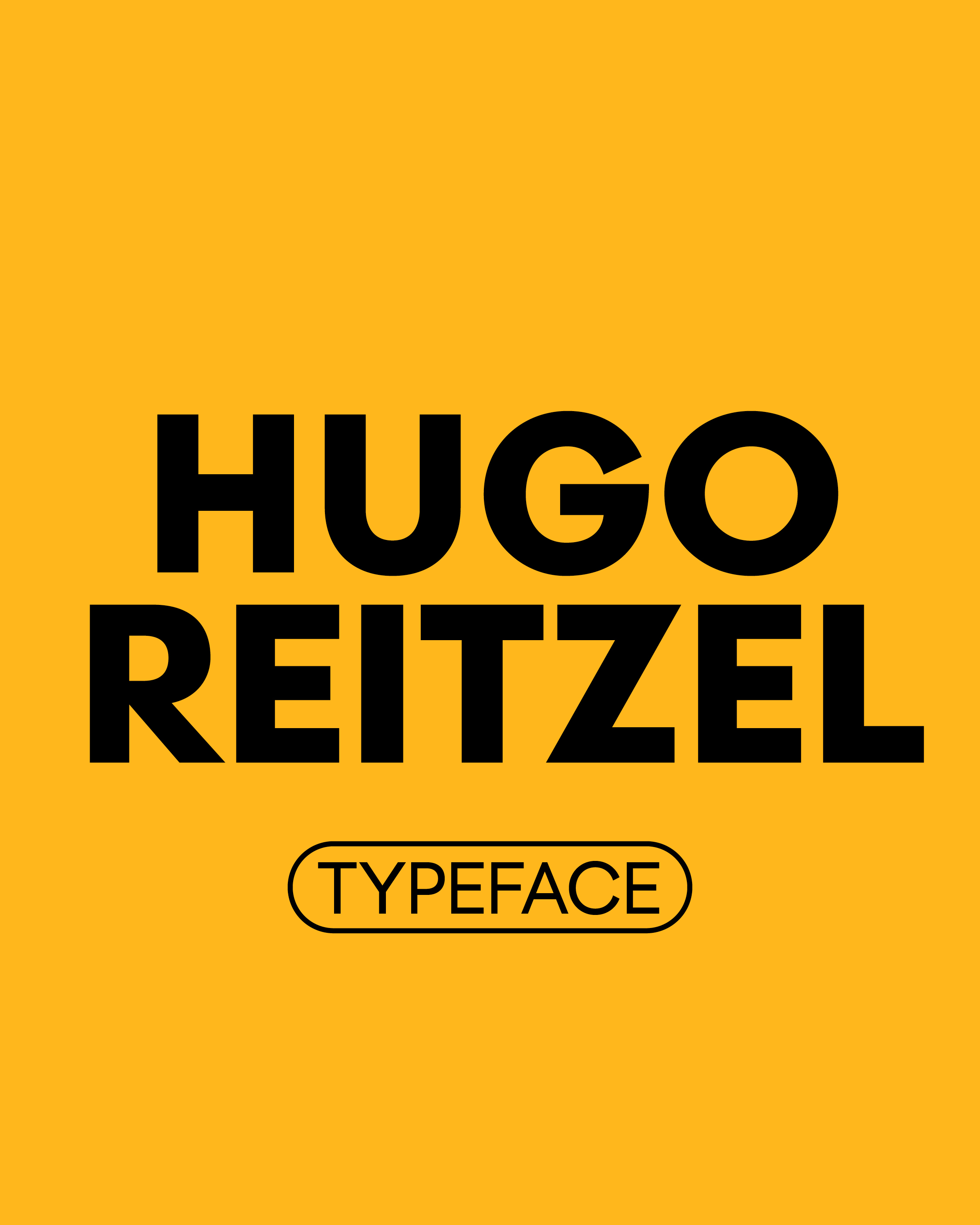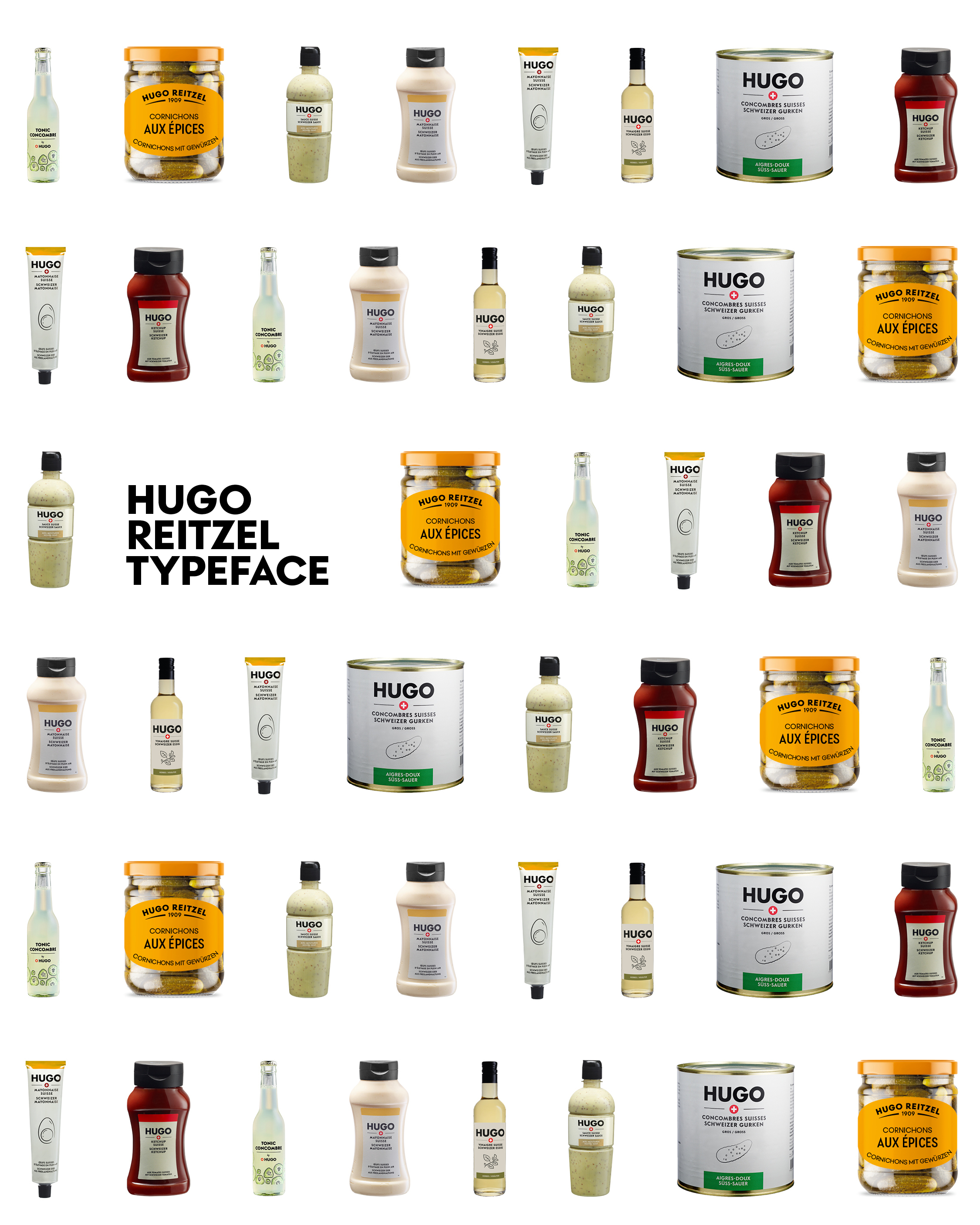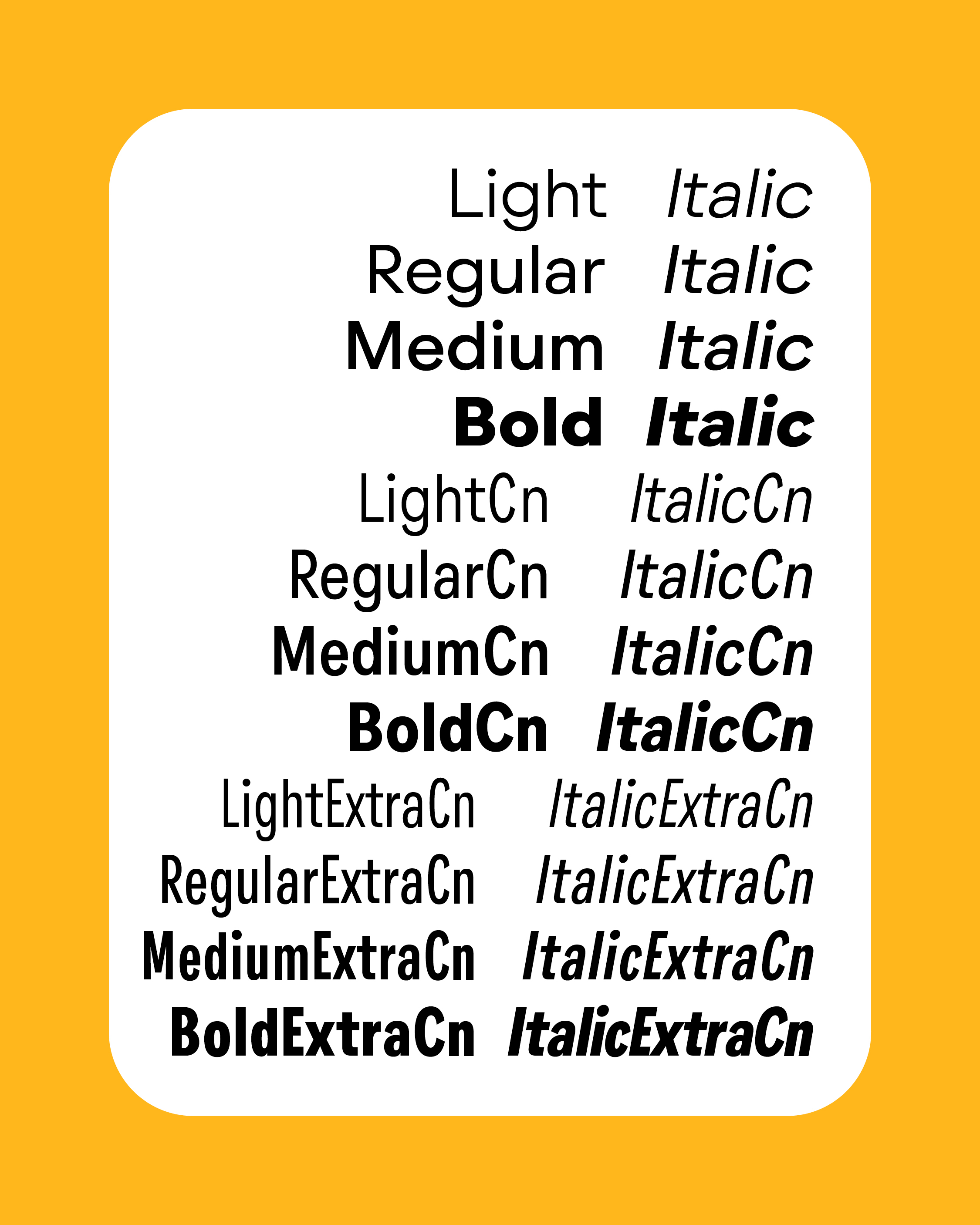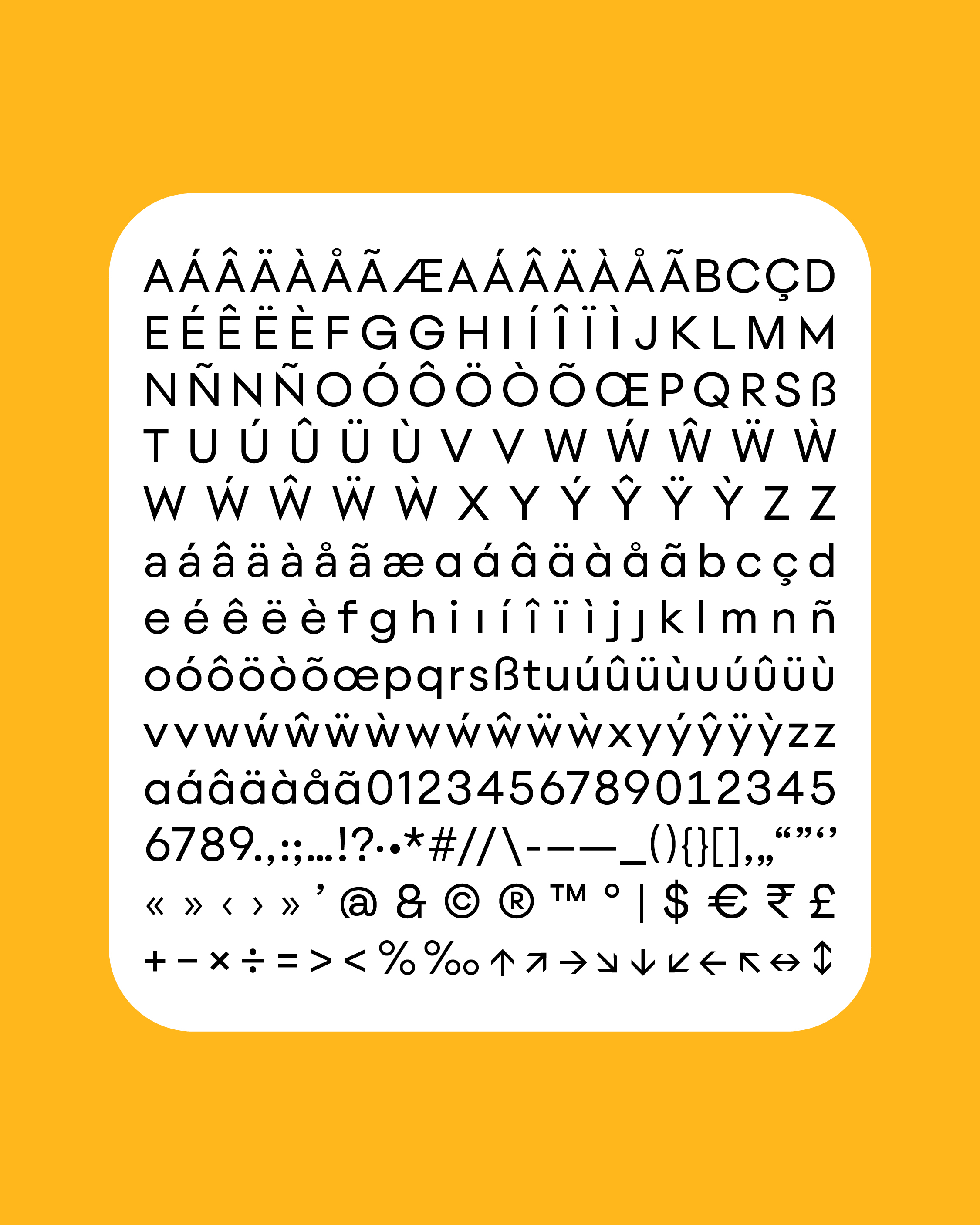
When Valais condiment institution Hugo Reitzel needed type as precise and characterful as their products, we designed a custom extended grotesque to anchor the brand — legible and neutral at small sizes, expressive at display scale.
The result is a 16-style family spanning four widths and four weights, built to perform from tight label copy to bold signage. Theirs alone.